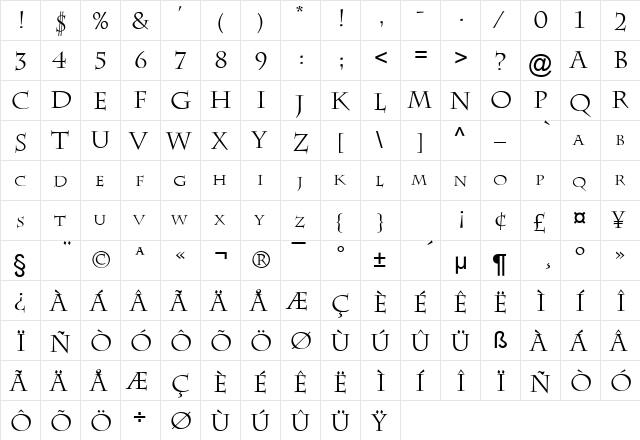
Chaz Normal Font Preview
Chaz Normal
Chaz Normal Font Details
Design Context for Chaz Typeface
Chaz offers clean, dependable letterforms without strong stylistic allegiance, making it a practical choice for designers who need flexibility.
Pro Tip: Use Chaz in both headline and body roles to test its range before committing to a single application.